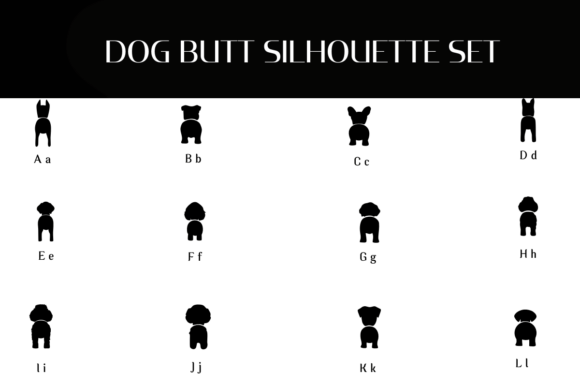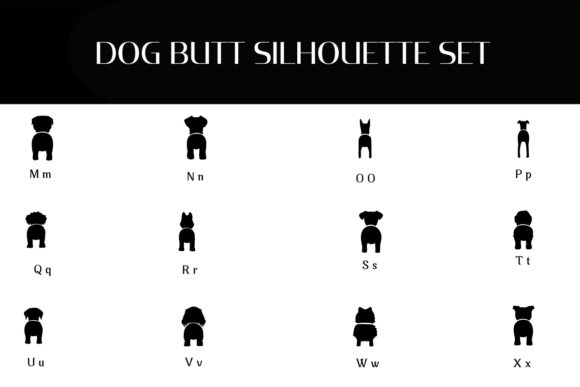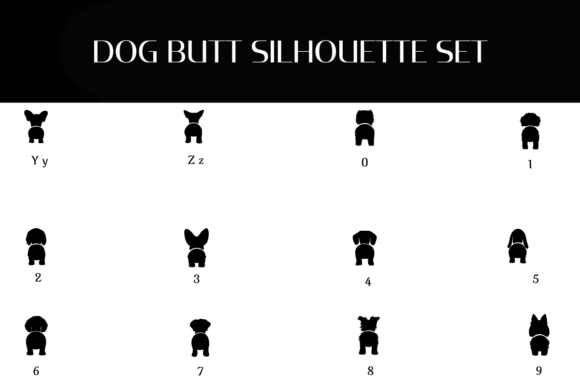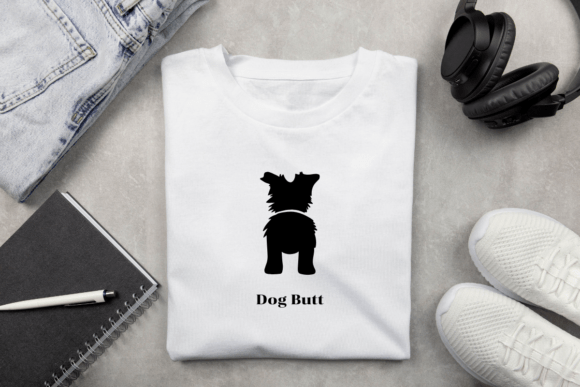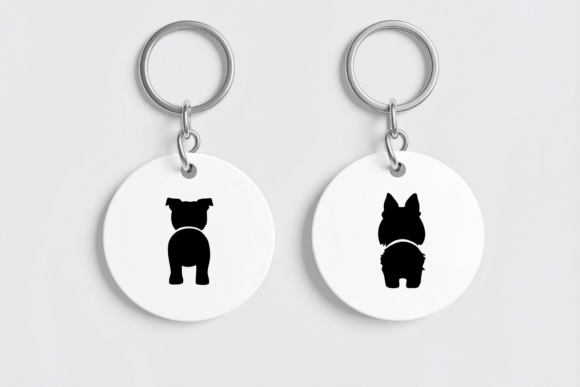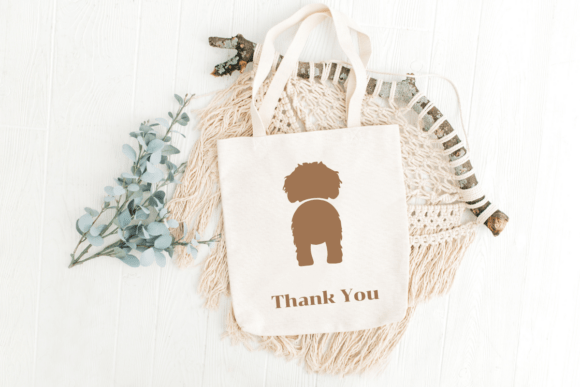
Unleash Laughter and Creativity with the Dog Butt Silhouette Set Font
Who says design can’t be hilarious? The Dog Butt Silhouette Set font is a one-of-a-kind dingbat collection that brings a smile to every viewer. This Dog Butt Silhouette Set typeface isn’t just a novelty; it’s a functional tool for pet-focused businesses, veterinary clinics, or cheeky stationery. Each character in this Dog Butt Silhouette Set font is a distinct, recognizable silhouette of various breeds from a unique perspective.
A Fresh Perspective on Canine Design
What sets the Dog Butt Silhouette Set font apart is its unusual yet charming approach to dog illustrations. Instead of the typical dog face or full-body depictions, this font offers the rear end of various dog breeds, each lovingly crafted to capture the unique characteristics of its subject. From the fluffy rear of a Pomeranian to the sleek behind of a Greyhound, every silhouette in this collection is meticulously designed to be instantly recognizable.
Versatility for Designers and Crafters
The Dog Butt Silhouette Set font is not just a novelty; it’s a versatile tool that can elevate a wide range of design projects. Here are some ideas to get you started:
- Quirky Icons: Use individual dog butt silhouettes as icons for pet-focused businesses, such as veterinary clinics, pet stores, or dog walkers.
- Patterns for Wrapping Paper: Create fun and playful wrapping paper designs by combining multiple silhouettes in a repeating pattern.
- Playful Accents on Social Media Graphics: Add a dash of humor to your social media posts with these cute dog butt silhouettes.
- Custom Stationery: Add a personal touch to your stationery or greeting cards with these unique silhouettes.
Pairing Suggestions for Maximum Impact
To make the most of the Dog Butt Silhouette Set font, it’s essential to pair it with a complementary typeface. Clean, rounded sans-serifs work particularly well, as they provide a professional backdrop that allows the humor of the illustrations to shine through. Some popular pairing options include:
- Open Sans: A friendly, approachable sans-serif that works well with a wide range of design projects.
- Lato: A sleek, modern sans-serif that adds a touch of sophistication to any design.
- Merriweather: A classic serif font that provides a nice contrast to the playful dog butt silhouettes.
Why the Dog Butt Silhouette Set Font Stands Out
In a world where design can often feel serious and corporate, the Dog Butt Silhouette Set font offers a refreshing change of pace. Here are just a few reasons why this font stands out:
- Unique Perspective: The rear-end perspective of the dog silhouettes offers a fresh take on traditional dog illustrations.
- Highly Recognizable: Each silhouette is meticulously crafted to capture the distinctive features of its subject.
- Versatile: From icons to wrapping paper patterns, this font can be used in a wide range of design projects.
The Dog Butt Silhouette Set font is more than just a novelty; it’s a powerful design tool that can bring laughter and creativity to a wide range of projects. Whether you’re a designer looking to add some humor to a client’s branding or a crafter seeking inspiration for your next DIY project, this unique font collection is sure to delight. So why settle for boring, generic design elements when you can unleash the power of the Dog Butt Silhouette Set font?
Get Ready to Unleash Your Creativity